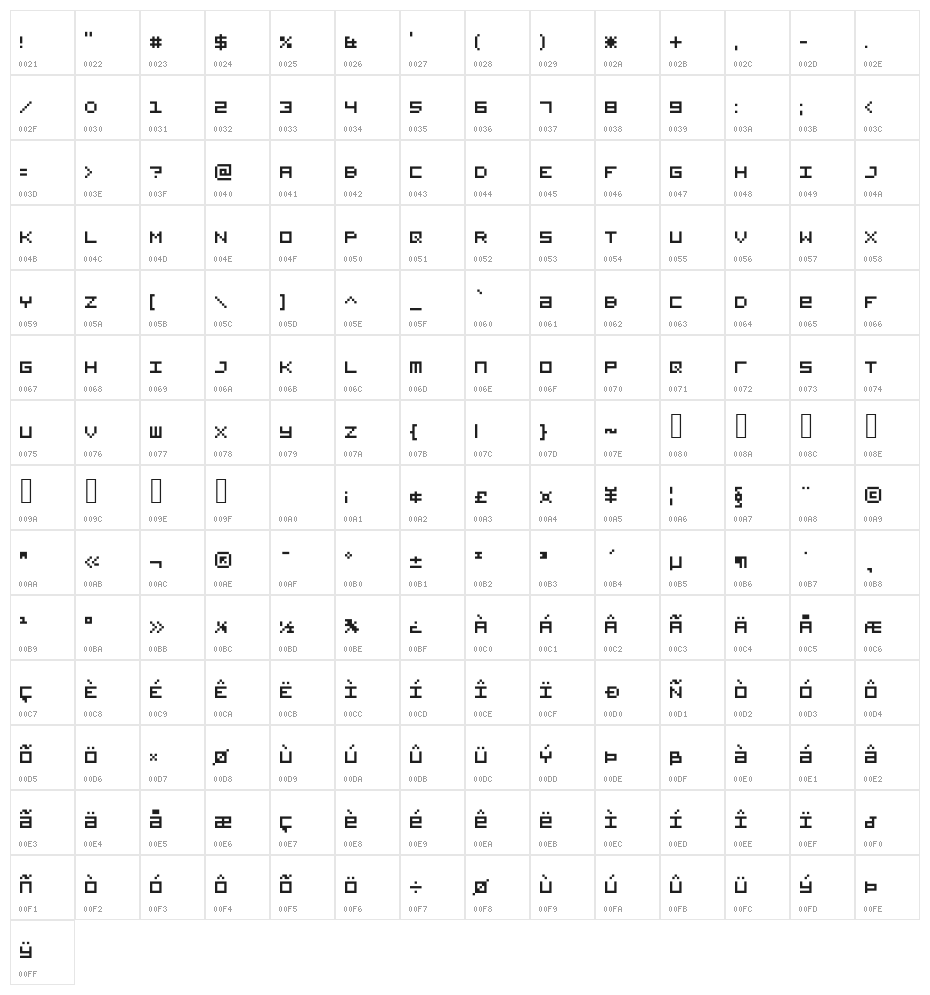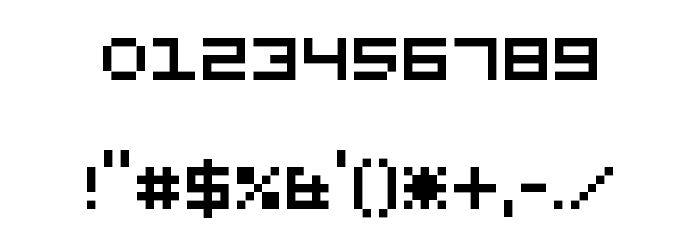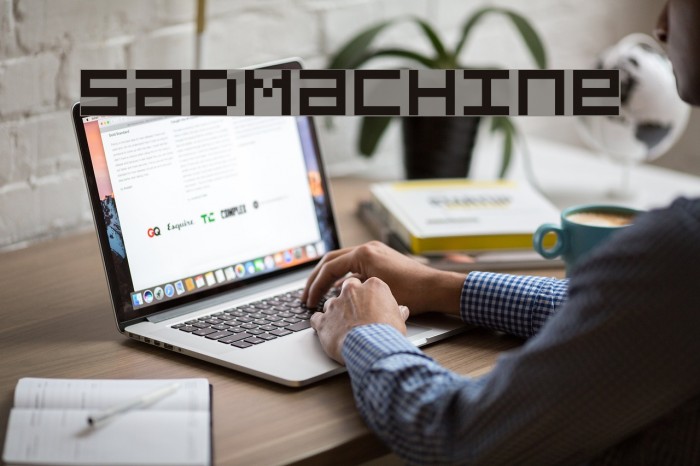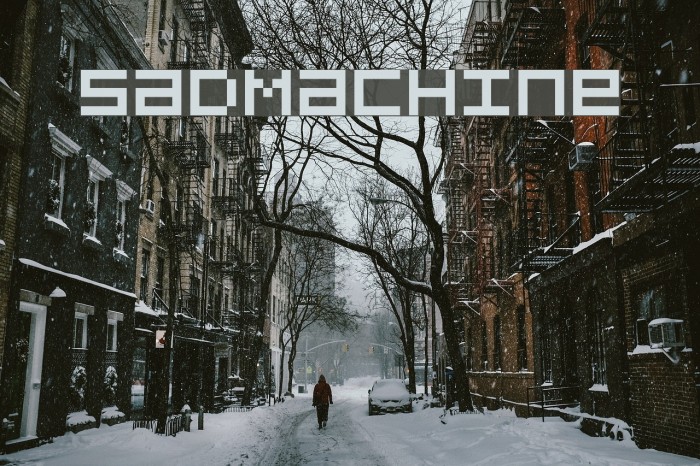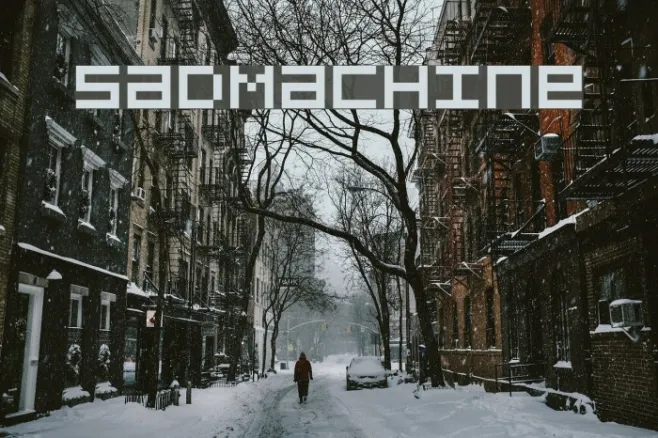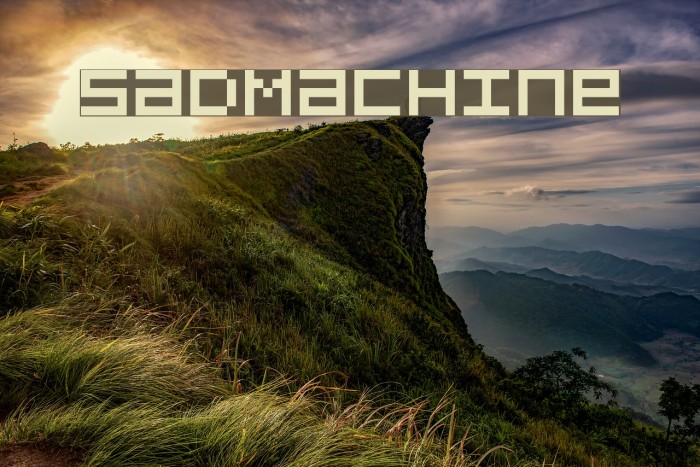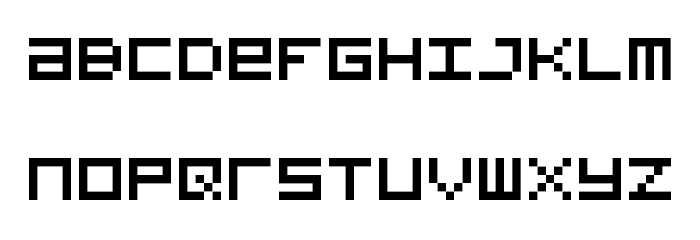
SadMachine Font
SadMachine Description
This font exhibits a distinct pixelated style reminiscent of early digital displays and retro video games. Each character is composed of uniform square blocks, creating a grid-like appearance that emphasizes a digital aesthetic. The uppercase and lowercase letters maintain a consistent height, contributing to a monospaced feel, although the font is not strictly monospaced. The numerals and special characters follow the same blocky design, ensuring visual coherence across all glyphs. The font's geometric structure and lack of curves give it a mechanical and futuristic vibe, making it ideal for projects that aim to evoke nostalgia for early computing or to create a tech-forward look.